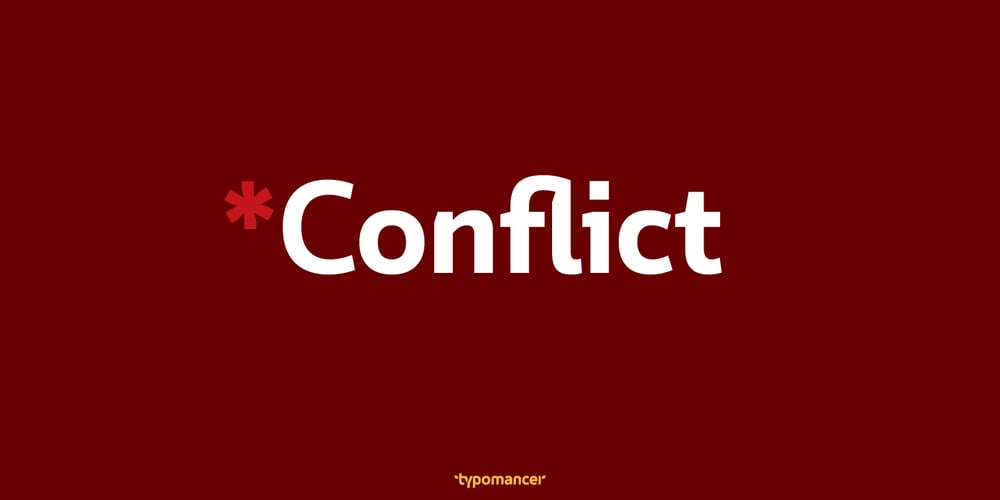
Conflict
Conflict font
Conflict Font Family was designed by published by Typomancer. Conflict contains 13 styles and family package options. ‘Conflict’ is one of Typomancer’s early typefaces; it was released when the foundry started. After a few years, we decide to give it some major changes, including more weights, more glyphs, brand new outline, and revamped kerning.